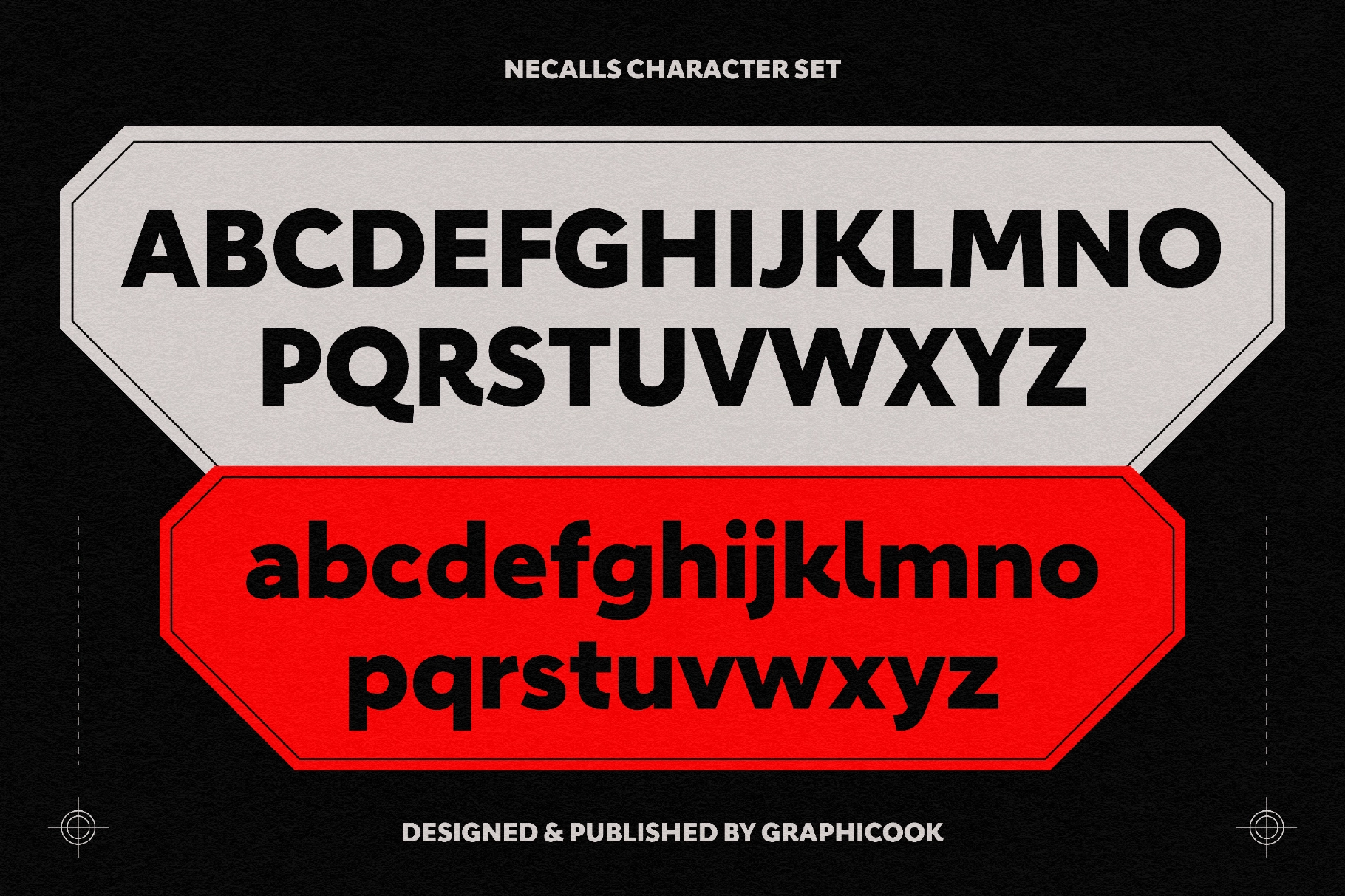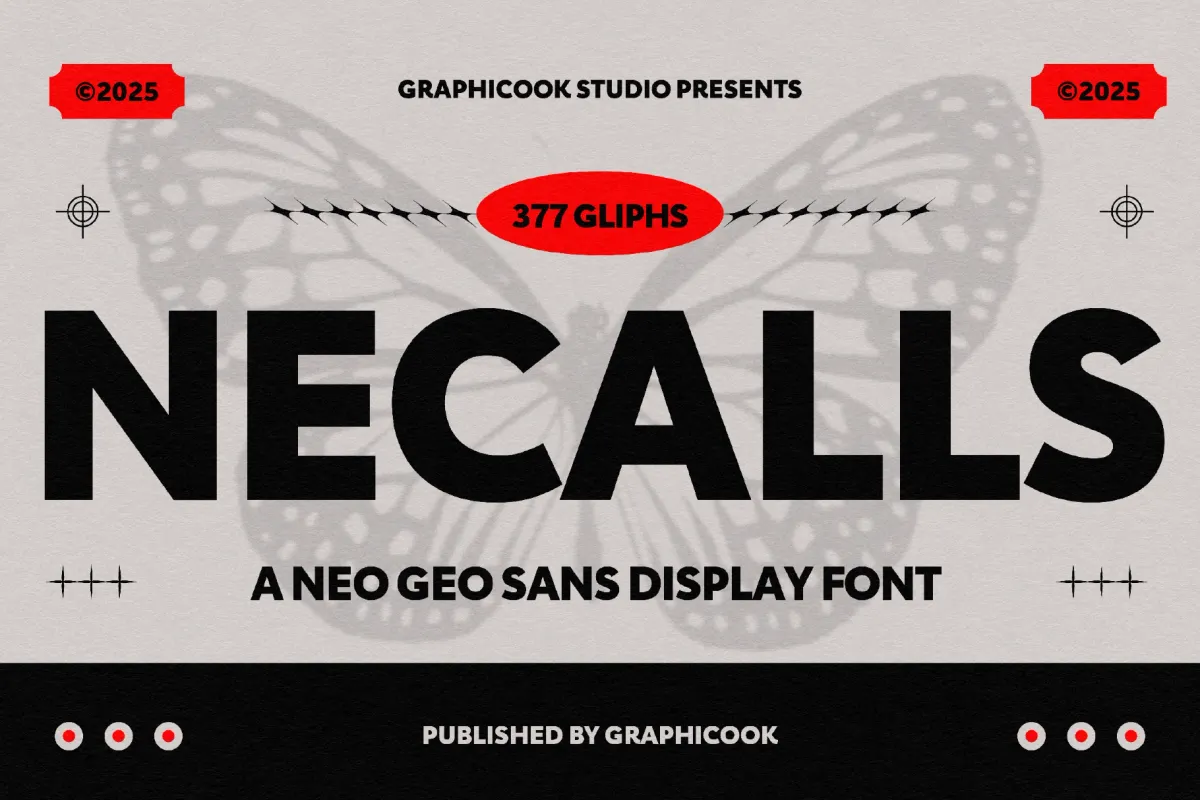
Necalls Font
Necalls
Necalls is a modern sans-serif font featuring bold, clean lines that enhance readability. It’s ideal for logos, business materials, fashion branding, and tech products.